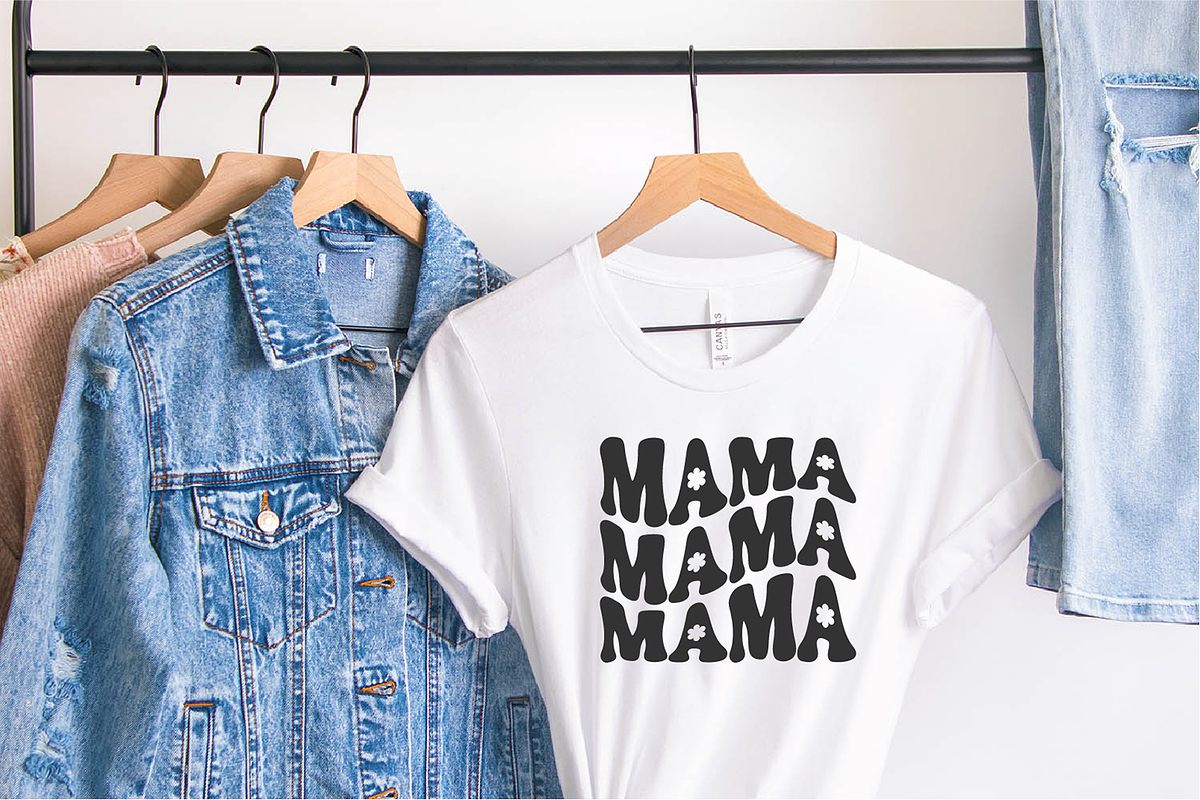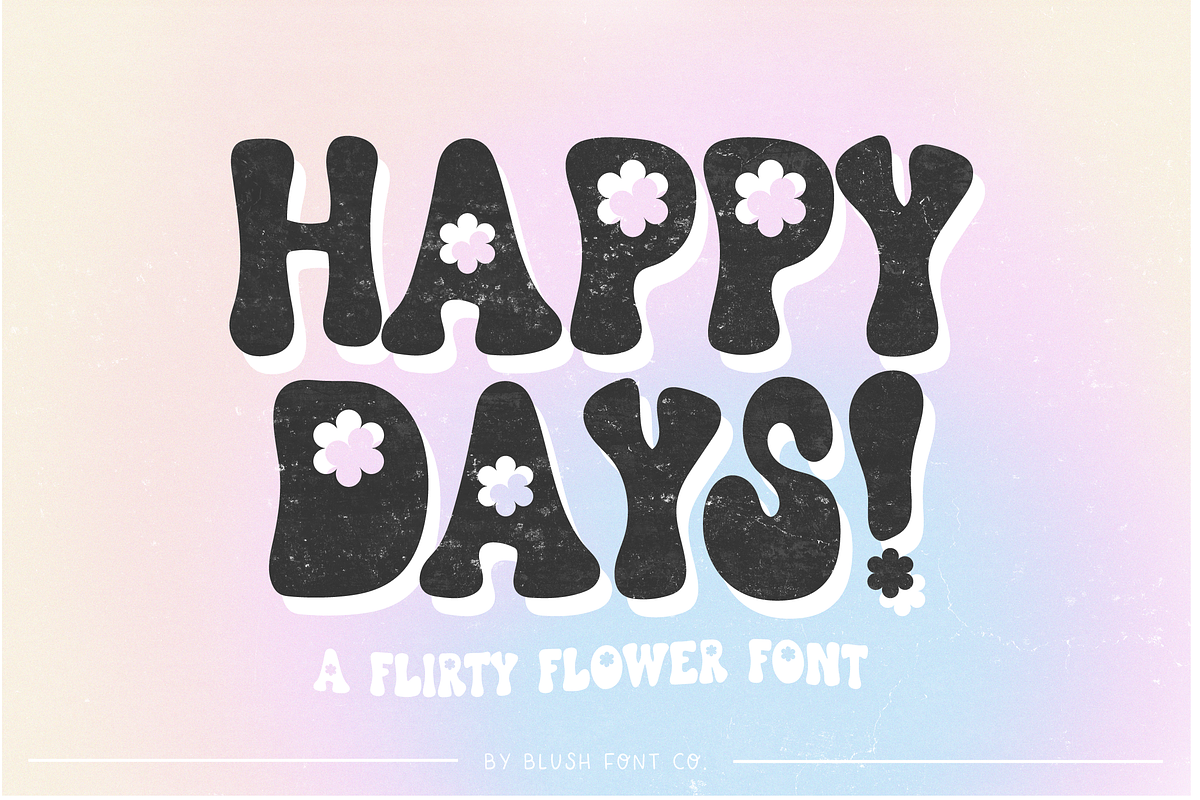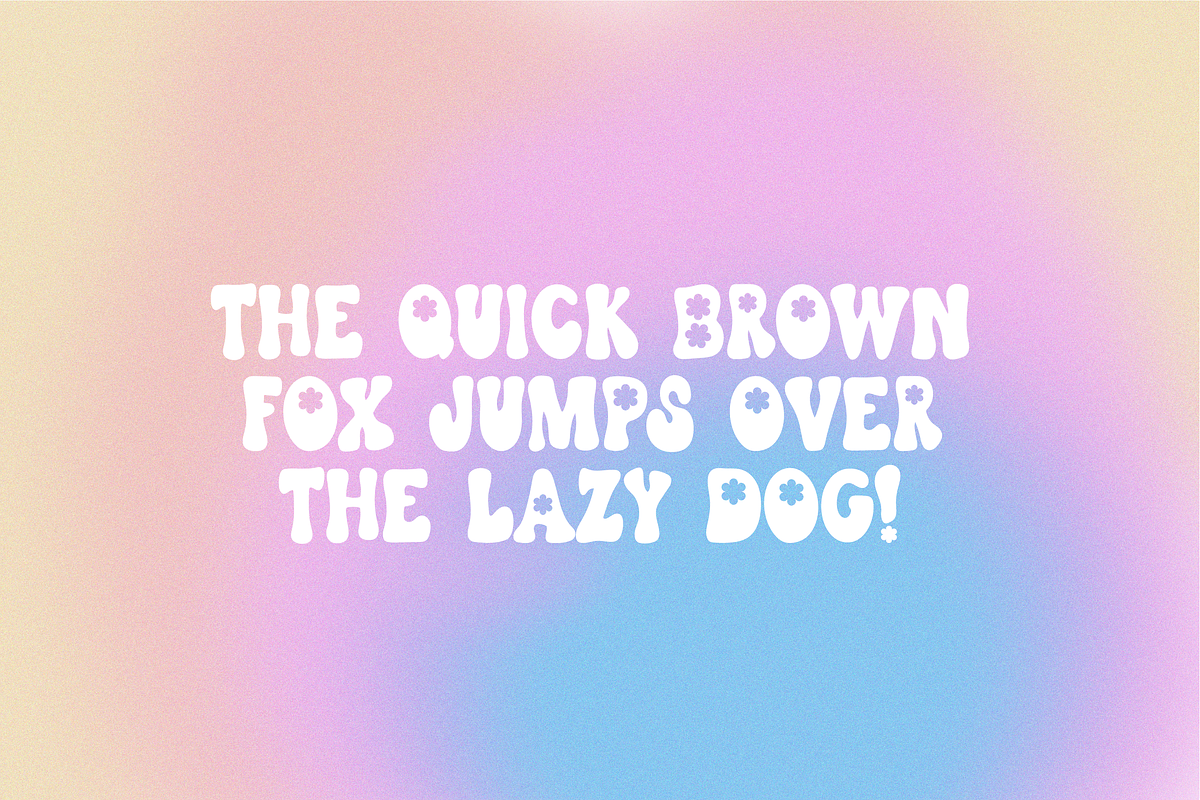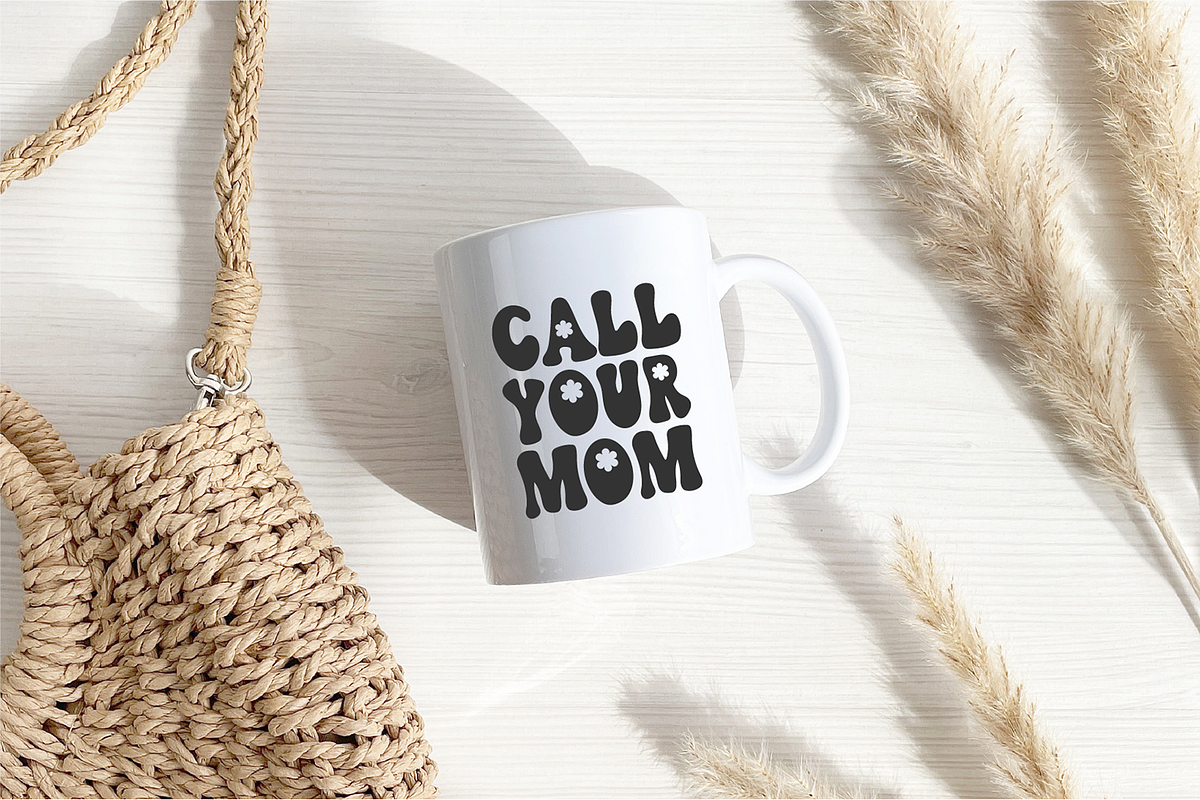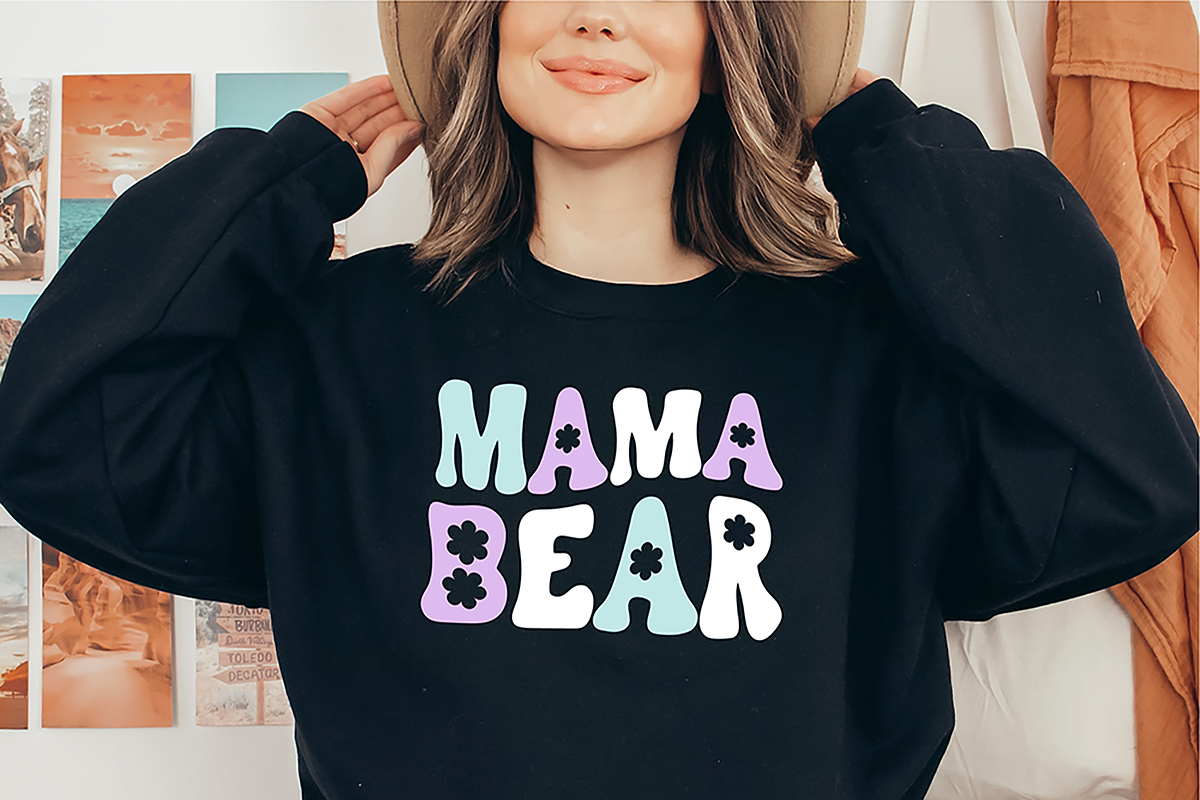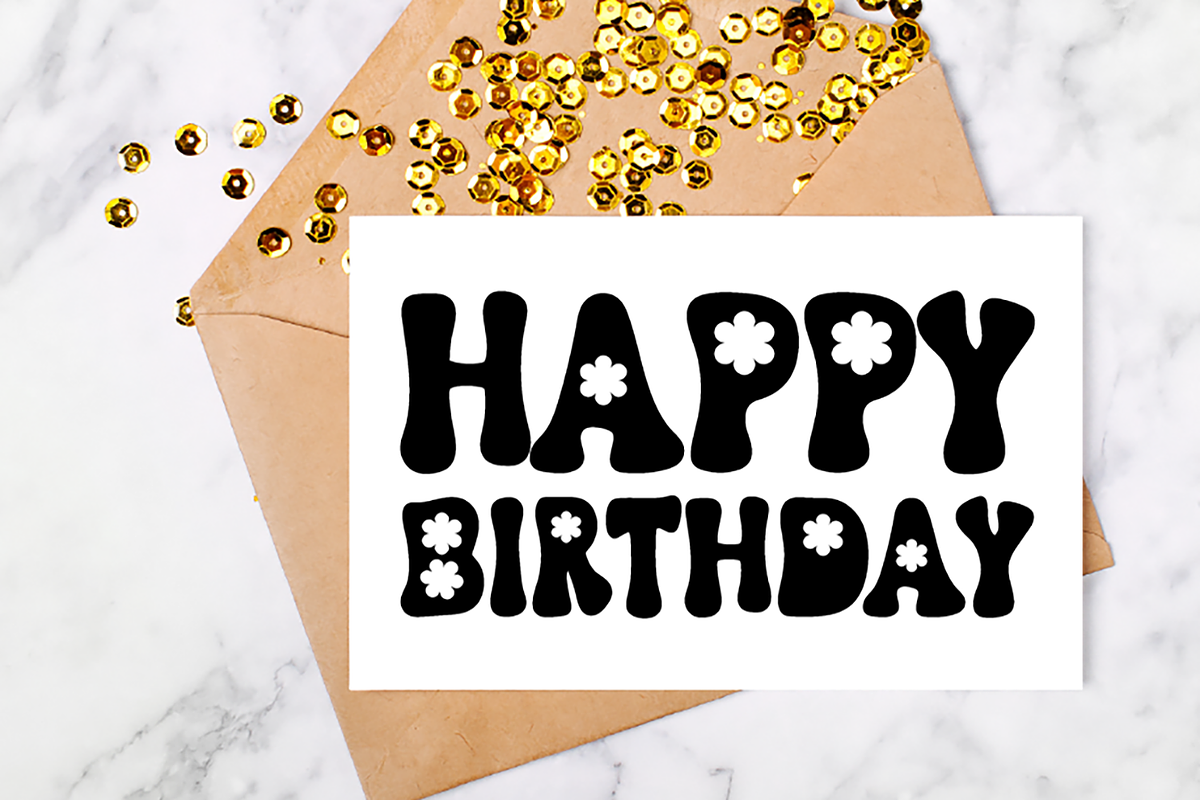
HAPPY DAYS Retro Flower Font
"Happy Days" a flower retro font
This font is a trendy display font that is perfect for social media or crafty projects. Use it for branding, crafts for decor, t-shirts, and more! This font includes all caps glyphs, numbers, and punctuation marks. This is a floral version of our font Wild Thing.